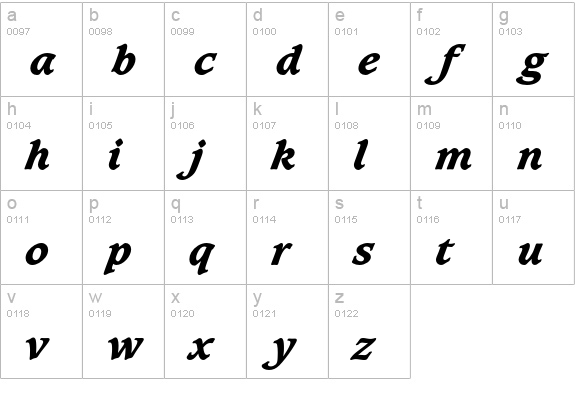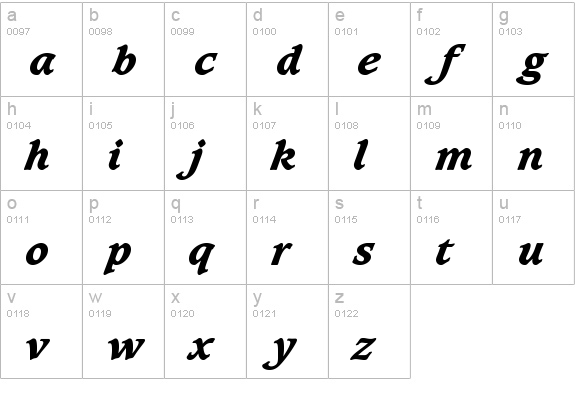
CaxtonEF-ExtraBoldItalic Font Details
Introducing CaxtonEF-ExtraBoldItalic, a striking and elegant typeface that exudes confidence and sophistication. With its bold and italicized design, this font is perfect for making a bold statement or adding a touch of flair to your design projects. The powerful presence of CaxtonEF-ExtraBoldItalic commands attention and leaves a lasting impression. What's even better is that this font is completely free to download at FontsMarket.com. That's right, you can add this premium quality typeface to your collection without spending a dime. Don't miss out on the opportunity to elevate your designs with CaxtonEF-ExtraBoldItalic. Download it now and let your creativity soar!